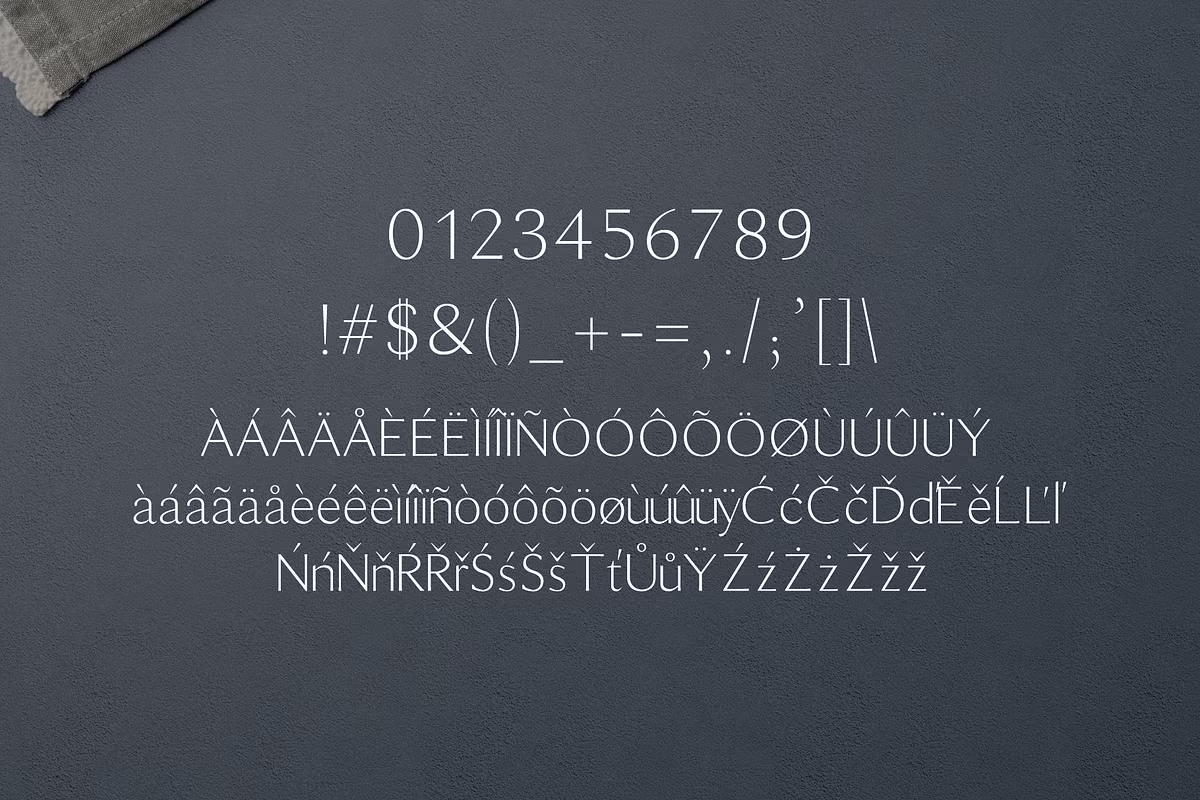
Maleah Sans Serif Fonts Family Pack: Modern Typeface for Logos and Branding
The Maleah Sans Serif Fonts Family Pack is a really cool set of fonts that can help you create some amazing things. It’s great for making logos, titles, and websites that catch people’s attention. The fonts are simple, yet modern, which makes them perfect for designers who want to make their projects stand out. With the Maleah font family, you can create some really stylish and professional-looking designs that will help you build a strong brand. Whether you’re working on a website, a logo, or just a title, this font pack has everything you need to make it look great. It’s a must-have for anyone who wants to create something that looks fresh and modern.
The Maleah Sans Serif Fonts Family Pack has a really simple and modern look. It’s clean and easy to read, making it perfect for lots of different design projects. The fonts are balanced and have a fresh feel to them, which is great for creating a contemporary vibe. Overall, the design style is sleek and nice to look at, making it a great choice for anyone who wants a modern font.
What makes Maleah really special is how versatile it is. When you use the fonts in all uppercase letters, they look amazing, especially with a lot of space between them – it adds a really sophisticated feel to any design. But if you mix uppercase and lowercase letters, it gives a classic look that’s perfect for both modern and traditional branding, making it a great choice for a wide range of styles.
The Maleah Sans Serif Fonts Family Pack is really great because it has lots of different characters that people all around the world can use. It’s got both big and small letters, so you can write in lots of different languages. This means you can make designs that lots of people can understand, no matter where they’re from. The pack also includes numbers, punctuation marks, and special characters from the Latin Extended A range, which is really helpful if you’re working on a project that needs to be in multiple languages. This makes it a great choice if you want to make something that’s inclusive and can be used by people who speak different languages.
- Uppercase Multilingual Letters: Perfect for titles and headings.
- Lowercase Multilingual Letters: Ideal for body text.
- Numbers & Punctuation: Essential for various design needs.
- Non-English Characters: Expands usability for international projects.
The Maleah font family is really versatile and can be used for lots of different projects. It has a big range of characters, which makes it easy for designers to create typography that lots of people will like. This means they can use it for almost anything, and it will still look great.
The Maleah Sans Serif Fonts Family Pack is really useful and can be used in lots of different design situations. Here are some great ways to use it:
- Branding and Logos: The clean lines and modern aesthetic make Maleah an excellent choice for creating unique and memorable logos that stand out in the marketplace.
- Web Design: Whether you are designing a website or an app, the different weights of Maleah, including Regular, Thin, Italic, and Bold, provide flexibility in text hierarchy and visual appeal.
- Advertising Materials: From brochures to posters, Maleah’s stylish and sophisticated look lends itself well to promotional content.
Make your social media posts pop with Maleah’s cool typography. It’s a great way to catch people’s attention and get them talking. You can use it to create posts and stories that really stand out.
In each of these scenarios, the Maleah font family brings a modern touch that enhances the overall design and effectively communicates the intended message.
To get the most out of the Maleah Sans Serif Fonts Family Pack, try combining it with other fonts that work well together. Here are some ideas to consider:
- Serif Fonts: Pair Maleah with a classic serif font like Georgia or Merriweather to create a striking contrast that highlights both modern and traditional elements in your design.
- Simple Fonts: For a clean look, you can pair Maleah with another simple font like Montserrat or Lato. This way, your design will look modern and consistent, but still have some variety to make it interesting.
- Display Fonts: Use a decorative display font alongside Maleah for headings or promotional materials to create visual interest and draw attention.
By thoughtfully pairing Maleah with other typefaces, you can create dynamic and engaging designs that capture the viewer’s attention.
The Maleah font family is a great tool for designers. It’s modern and stylish, making it perfect for creating logos, branding materials, and websites that stand out. With a wide range of characters and different weights, Maleah is versatile and can be used for many projects. Whether you’re working on something personal or for a business, using Maleah will give your work a sophisticated look. It’s a great way to add some elegance to your designs and make them more interesting. By using the Maleah font family, you can create something really special and take your designs to the next level.